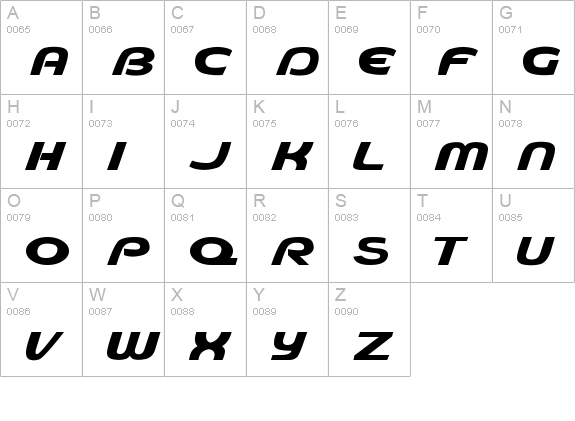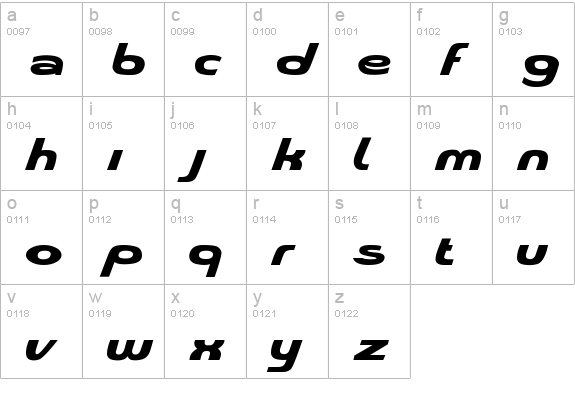
Introducing Pioneer Font, a versatile and elegant typeface that exudes a sense of adventure and craftsmanship. With its bold yet refined letterforms, Pioneer is the perfect choice for any project that requires a touch of authenticity and character. This font is not only visually striking but also incredibly versatile, making it suitable for a wide range of design applications. Whether you're creating a logo, a website, or a promotional material, Pioneer Font will effortlessly elevate your design to new heights. But what sets Pioneer Font apart from the rest is its accessibility. It is freely available to download at FontsMarket.com, making it accessible to designers, enthusiasts, and creatives alike. This means that you can enjoy the beauty and functionality of Pioneer Font without having to break the bank. So why wait? Dive into the world of Pioneer Font and let your creativity soar. With its timeless appeal and user-friendly nature, this font is sure to become a staple in your design arsenal. Download Pioneer Font today and embark on a journey of design excellence.